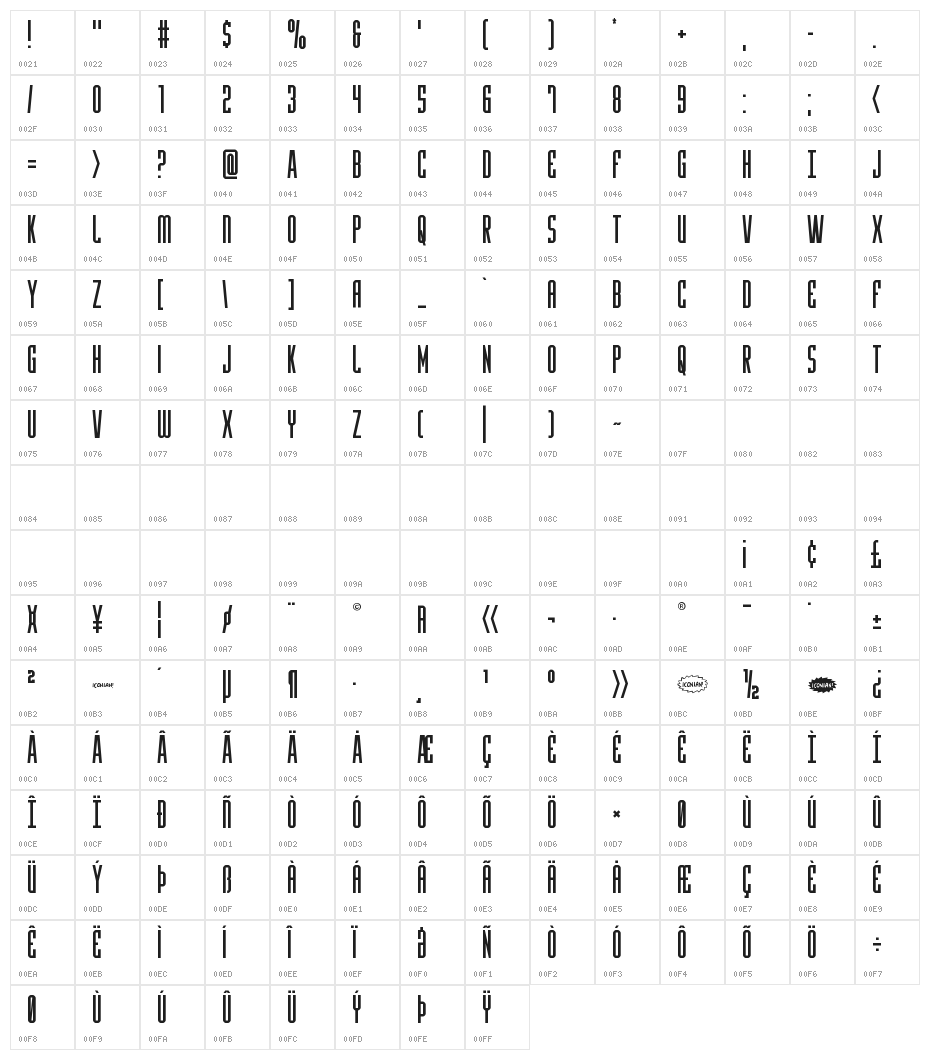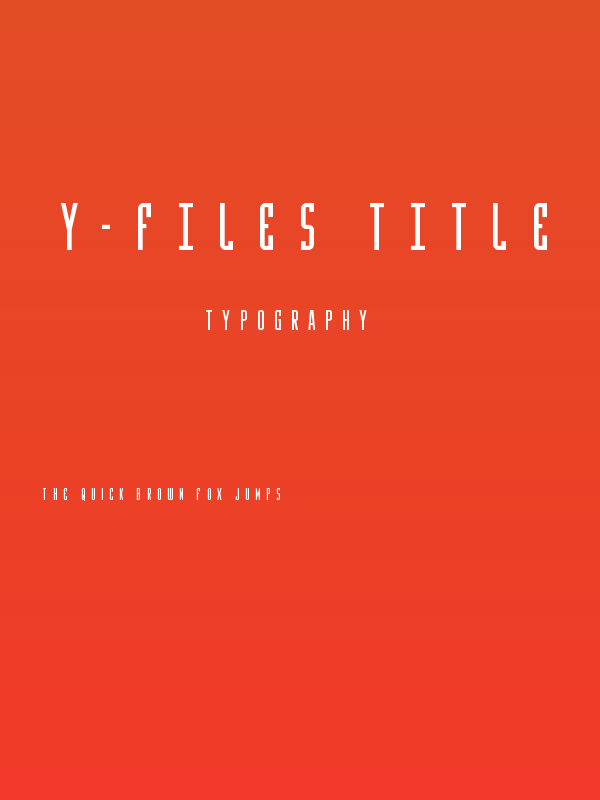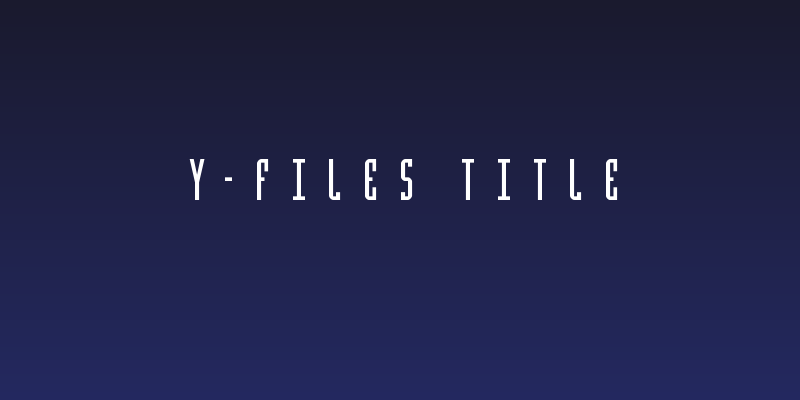
Y-Files Title Font
Y-Files Title Description
This font features a tall, narrow design with a distinctly modern and geometric aesthetic. The characters are uniformly structured, with consistent vertical strokes and minimal serifs, giving it a sleek and streamlined appearance. The uppercase and lowercase letters maintain a cohesive style, with the lowercase being slightly more compact. Numbers are bold and clear, ensuring readability. Special characters are designed to match the overall aesthetic, providing a harmonious look across all glyphs. This font's elongated form and clean lines make it suitable for impactful visual statements.
| Proposed Projects | Ideal for branding, posters, and headlines where a modern and striking appearance is desired. |